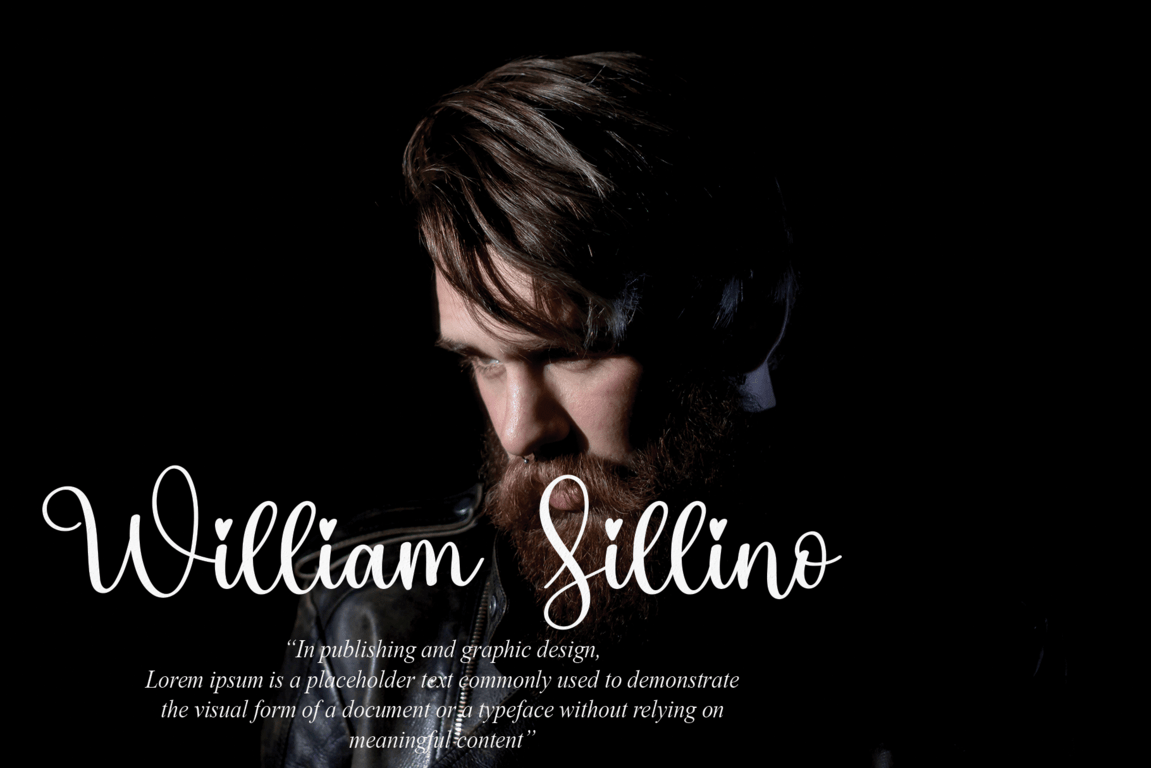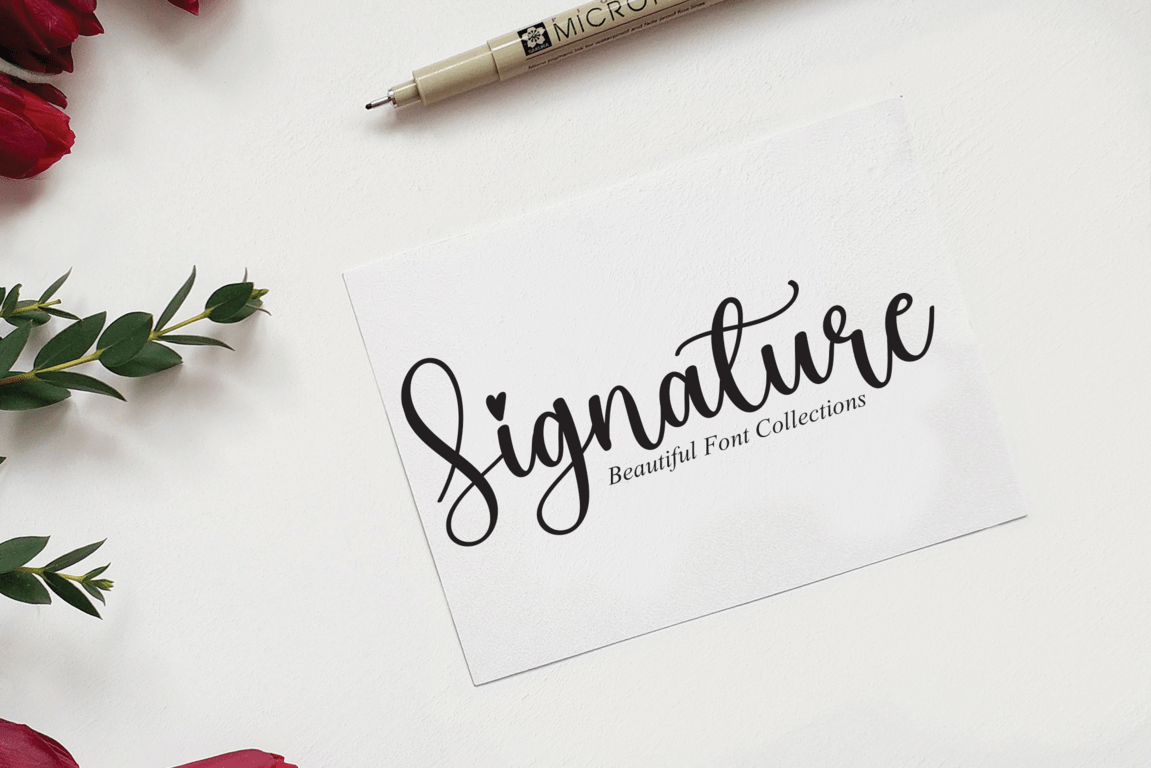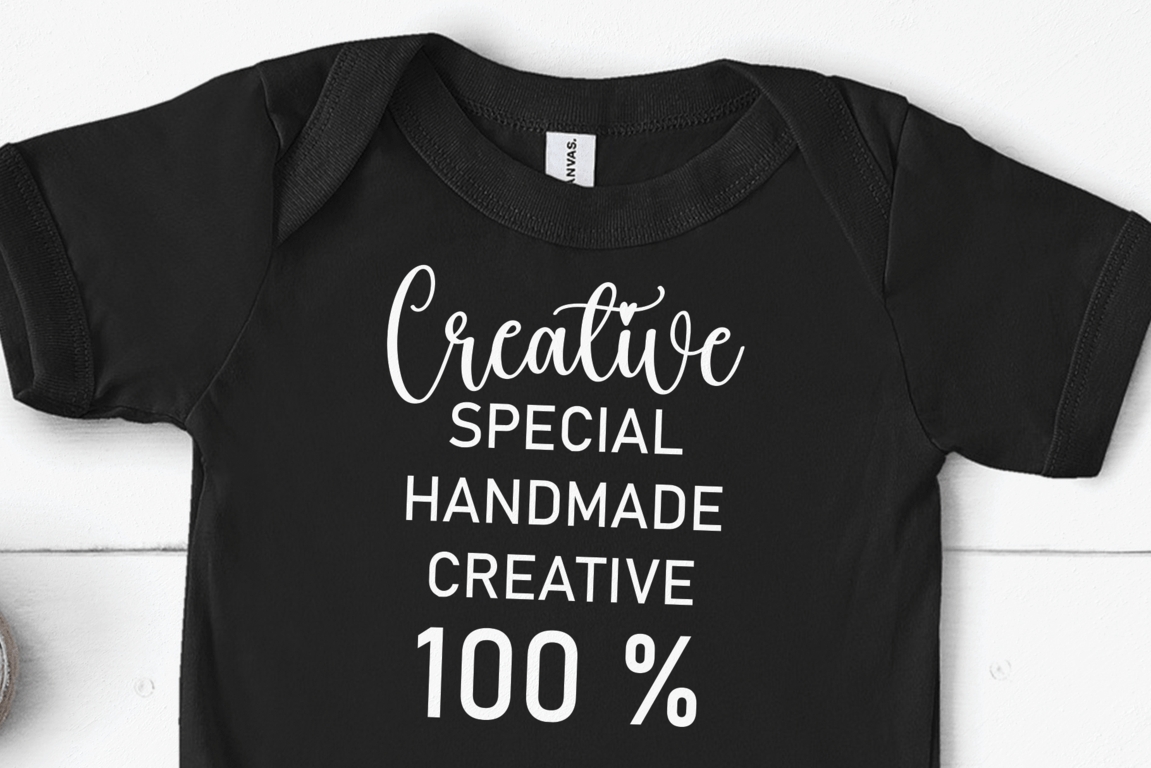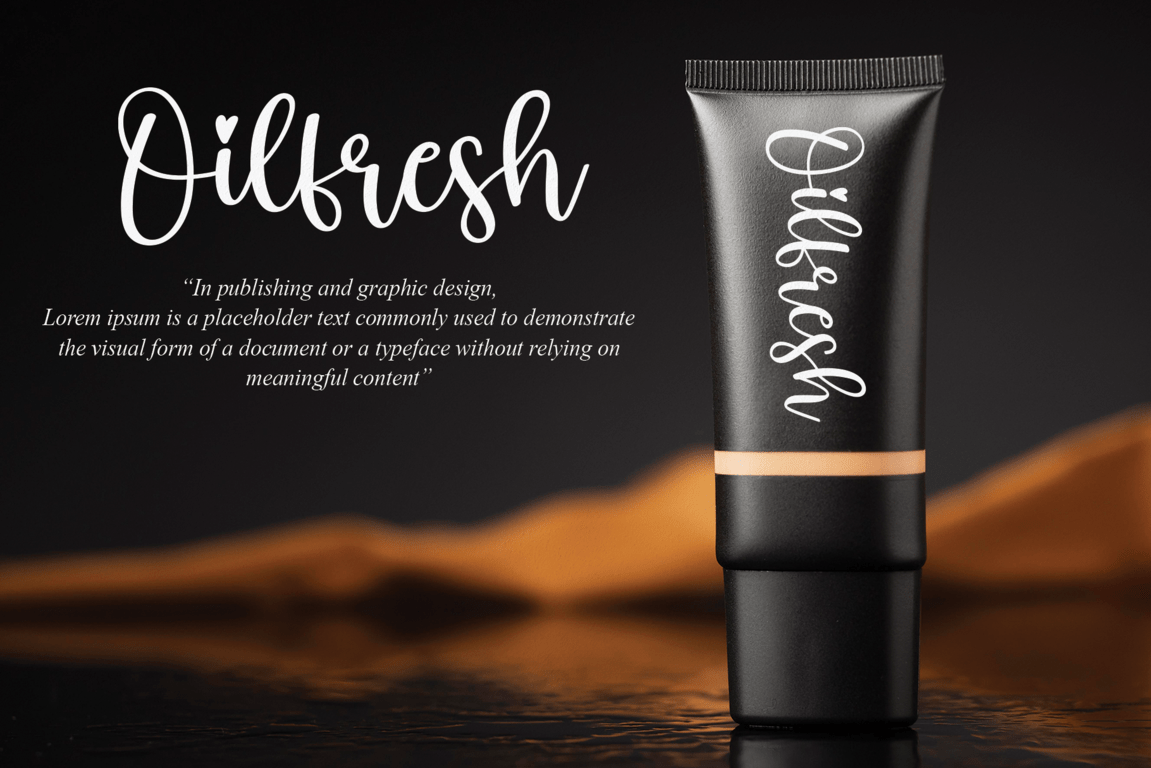
Blackink Font
Blackink Script Font is a beautiful calligraphy font with stunning characters, alternatives and ligatures. This font is ideal for wedding, florist, sales marketing, professional, dentist, real estate, music, videography and more. Blackink is PUA encoded which means you can access all of the glyphs and swashes with ease.
the latest style letters are perfect for wall displays, wedding invitations, social media post logos, advertisements, product packaging, product designs, labels, photography, watermarks, invitations, stationery, and any project that requires taste handwriting.